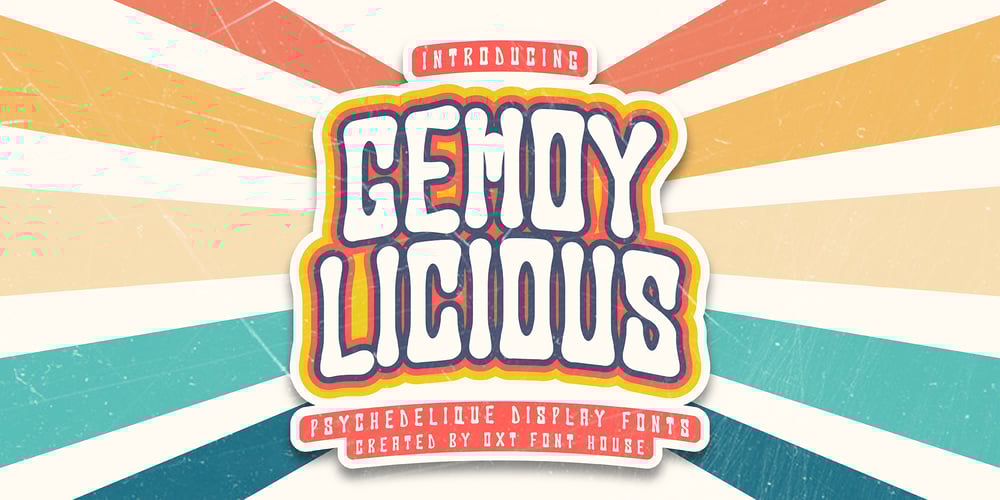
Gemoylicious Font Family was designed by Oksta Aziz Rachmaddan and published by Oxt Type House. Gemoylicious contains 1 styles and family package options. Introducing, the newest font from OXT Type House “GEMOYLICIOUS”. This groovy font with a retro feel is very suitable for design needs with 80’s, retro, hippy and so on themes and concepts. This font has bold, fat and rounded characters. This font will give your design more character.